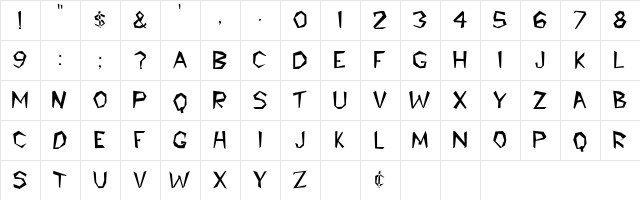
CAROLEE Regular
Design Context for CAROLEE Typeface
CAROLEE is a composed and adaptable typeface that performs quietly and consistently across a wide range of design contexts.